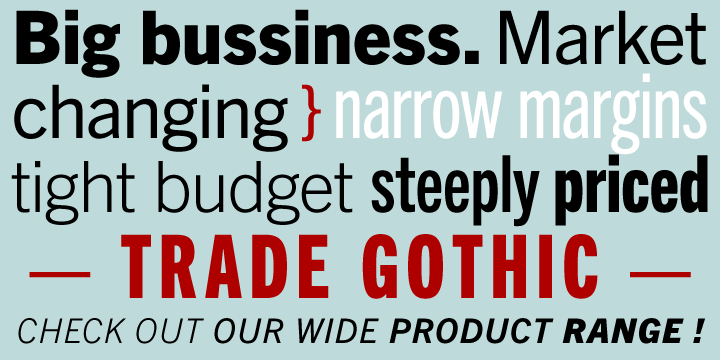
Trade Gothic
Created by Jackson Burke, this mesmerizing font is known for its earthy naturalism. Its rustic appeal is appreciated by all and sundry. Trade Gothic is a hot favourite among calligraphy experts these days. It is often seen in the field of advertising and multimedia. Trade Gothic is used in conjunction with roman text fonts. The … Read more